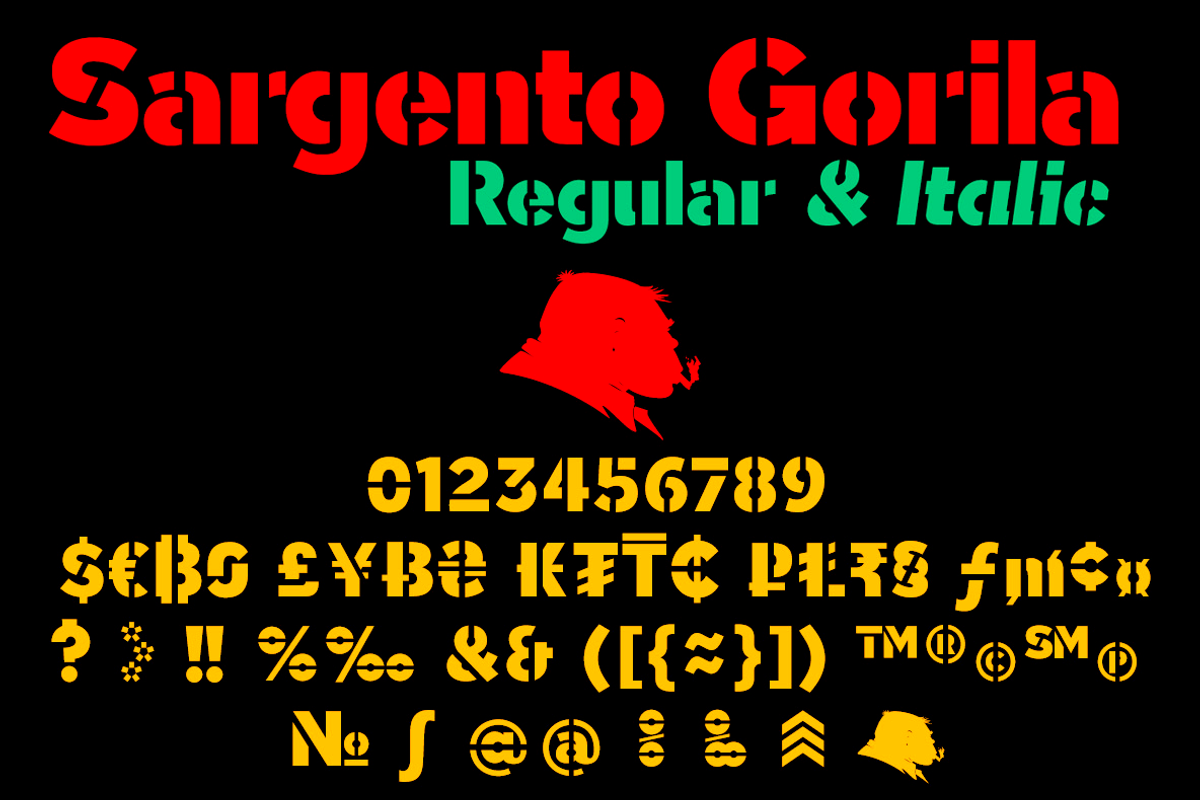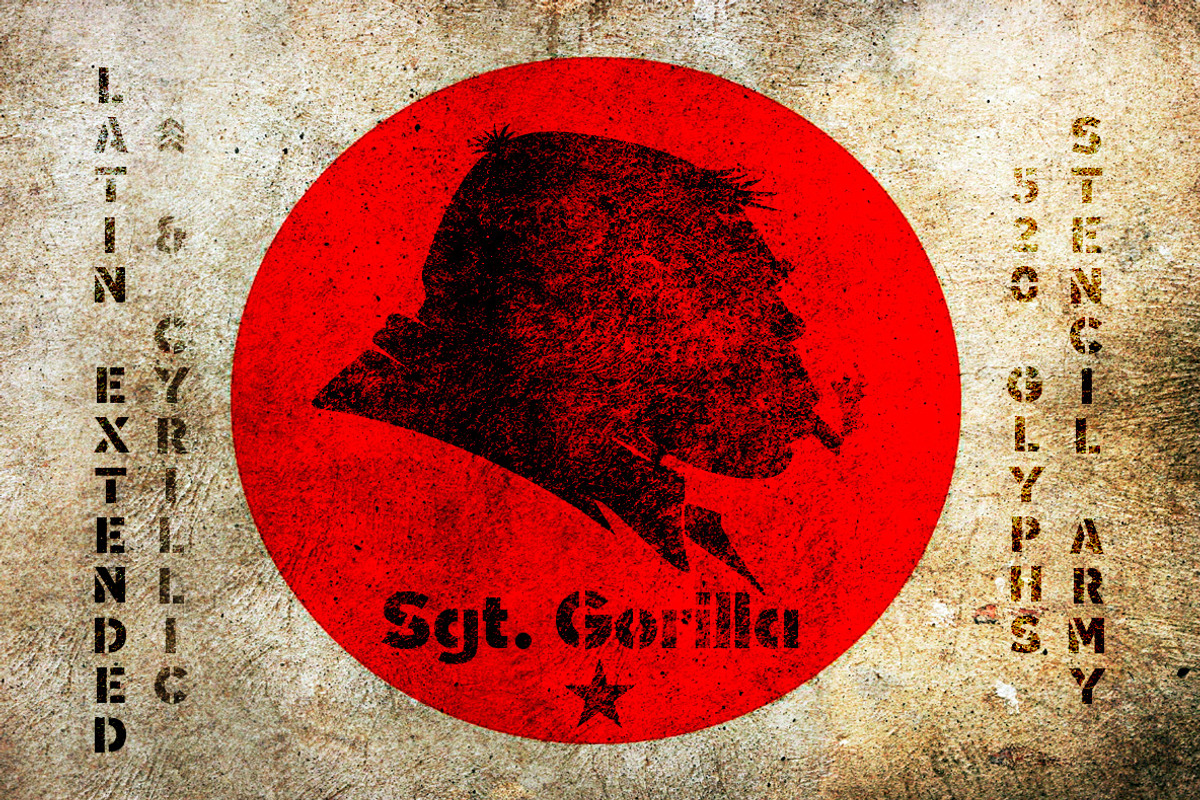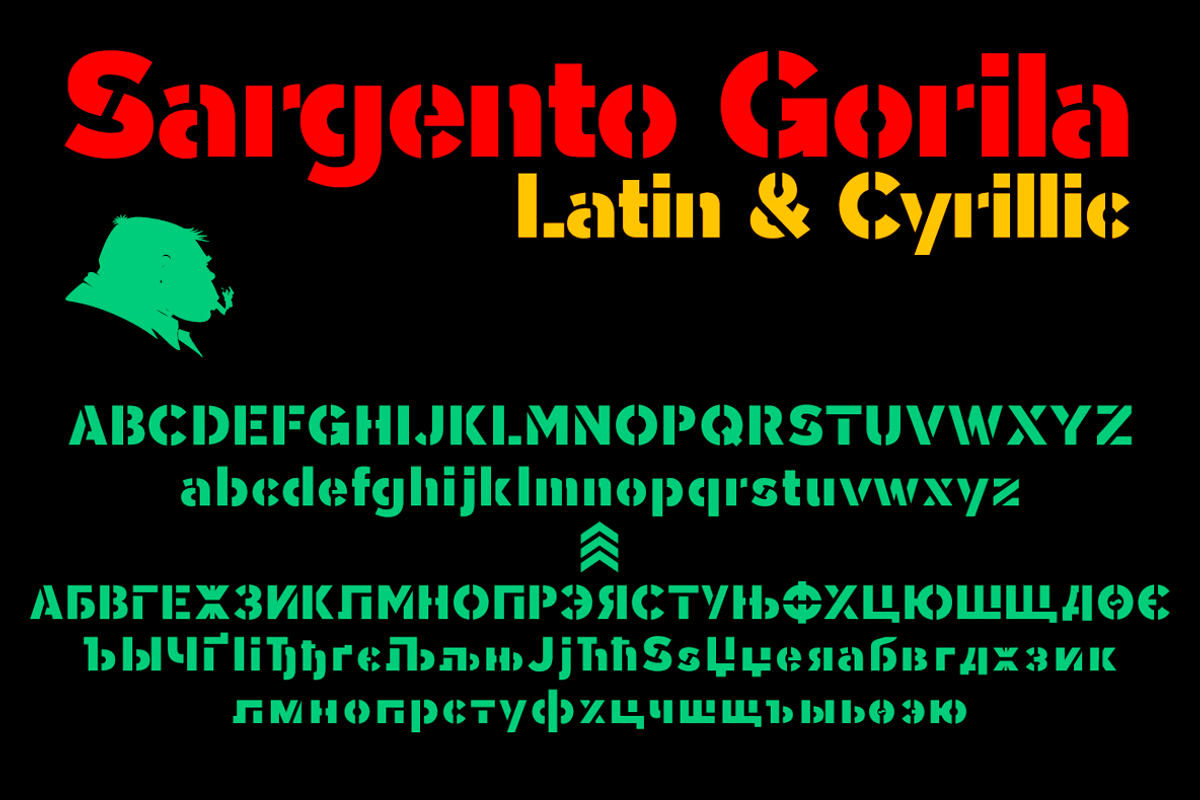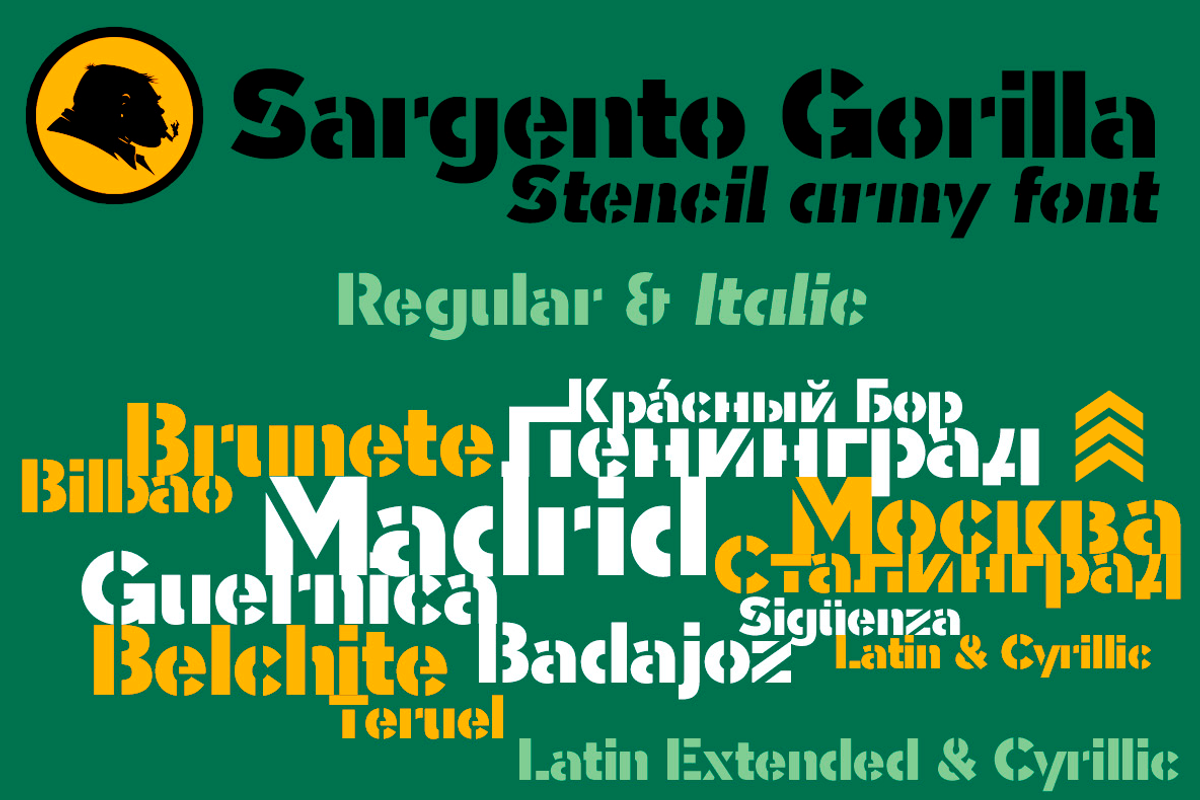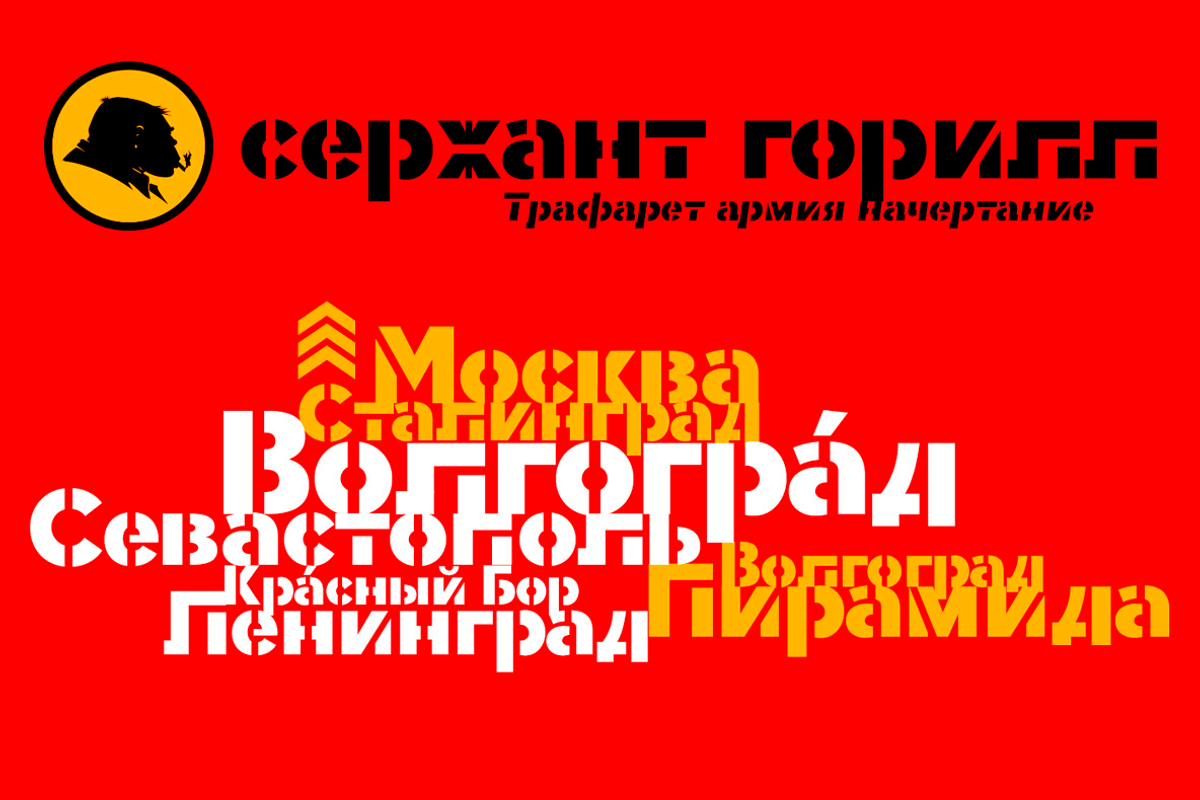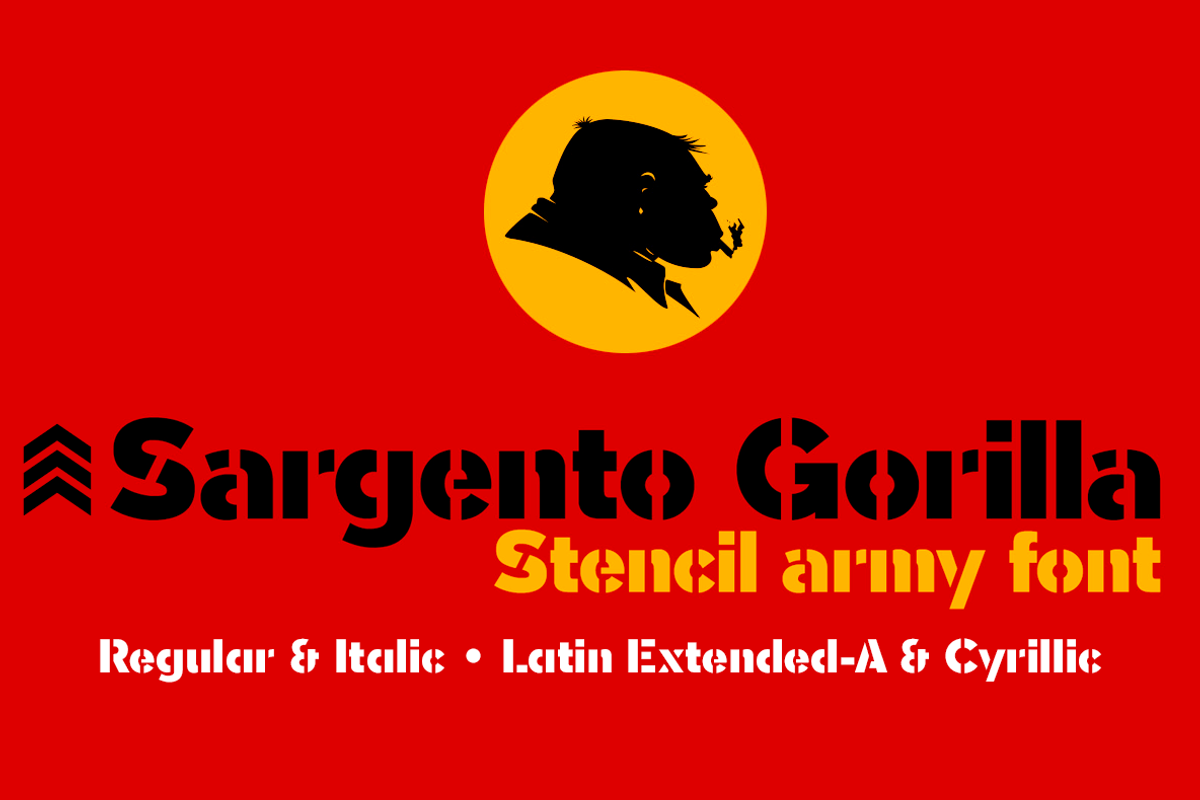
Sargento Gorila 2 fonts by deFharo is a font selected for branding, posters, packaging, typography.
- Includes the Cyrillic alphabet and Latin Extended-A, several monetary symbols, alternative letters and various ligatures.
- OpenType Functions: Stacked Fractions, Historical Forms, Kerning, Localized Forms, Capital Spacing, Standard Ligatures, All Alternates, Addi
- Use ligatures: Two Bitcoin symbols: (b#, B#) Sergeant symbol: a# Sargento Gorila (dlig): SGT Show More
- Sargento Gorila Regular
- Sargento Gorila Italic